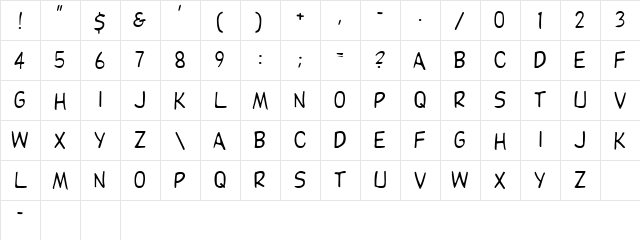
Dupuy Regular
Design Context for Dupuy Typeface
Dupuy takes a measured approach to typography — its balanced proportions and neutral character make it a reliable workhorse for both digital and print work.